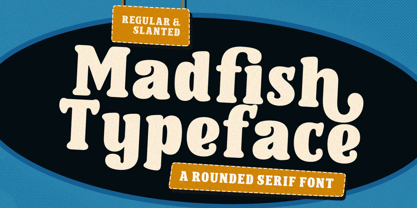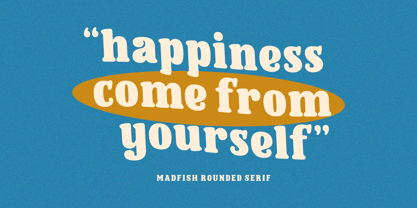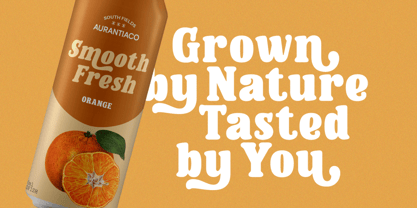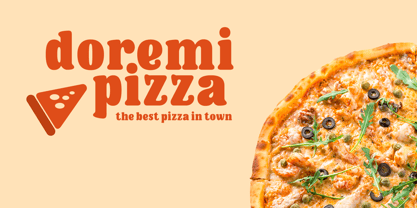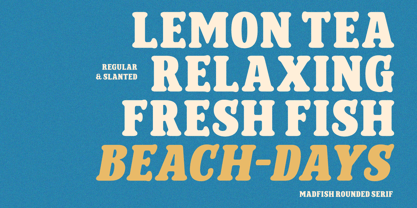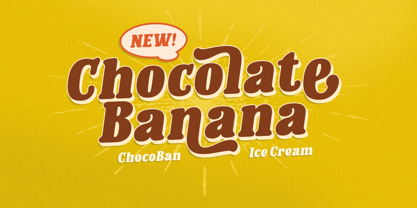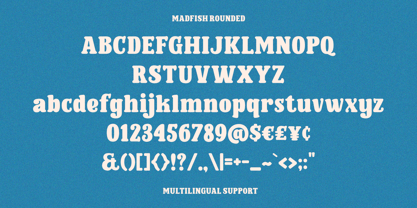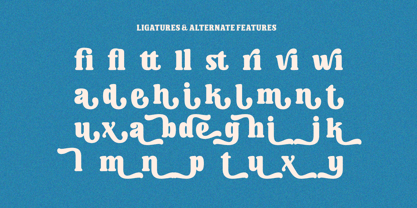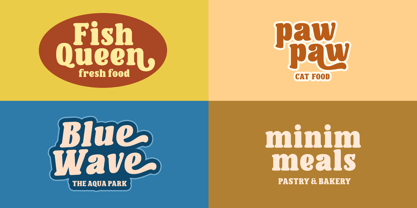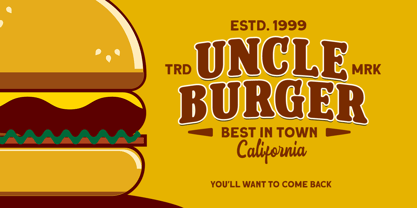
Madfish
by Letterhend
The Madfish Font Family was designed by Hendry Juanda and published by Letterhend. Madfish contains 2 styles and family package options. More about this family
Medfish Typeface is a stunning font with a unique combination of rounded serifs and bold strokes, giving it a playful yet sophisticated look. Inspired by vintage design, this font has a retro style that adds a touch of timeless elegance to any project. Features: Uppercase & lowercase Numbers and punctuation Ligatures & Alternates Multilingual PUA encoded
Designers: Hendry Juanda
Foundry: Letterhend